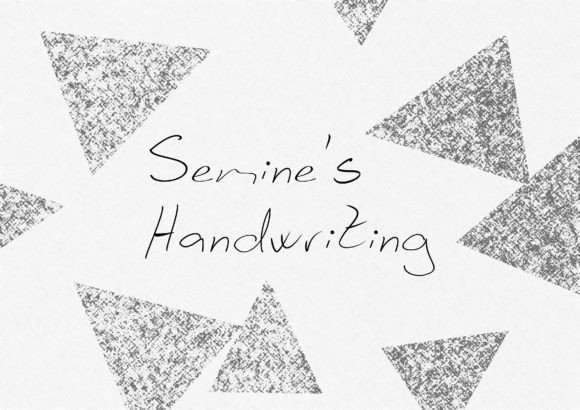
Semine’s Handwriting Font
Step into a world of enchanting artistry with Semine's Handwriting Font, a captivating script font family that dances across your designs with effortless grace. Inspired by the beauty of handwritten notes, this font is a testament to the power of individuality and self-expression.
Semine's Handwriting is a stroke of genius, a perfect blend of classic elegance and modern flair. Its delicate strokes and sweeping curves evoke a sense of nostalgia, while its contemporary twist adds a touch of fun and playfulness. This font is a true chameleon, adapting seamlessly to any design project, whether you're creating personalized invitations, eye-catching logos, or stunning social media graphics.
With Semine's Handwriting, the possibilities are endless. Unleash your creativity and let your words take center stage. Whether you're a seasoned designer or just starting your artistic journey, this font will elevate your projects to new heights.
Dive into the world of Semine's Handwriting and discover a font that speaks to your soul. Its charming personality will capture hearts and leave a lasting impression. So why settle for ordinary when you can embrace the extraordinary? Make a statement with Semine's Handwriting and let your designs shine brighter than ever before.